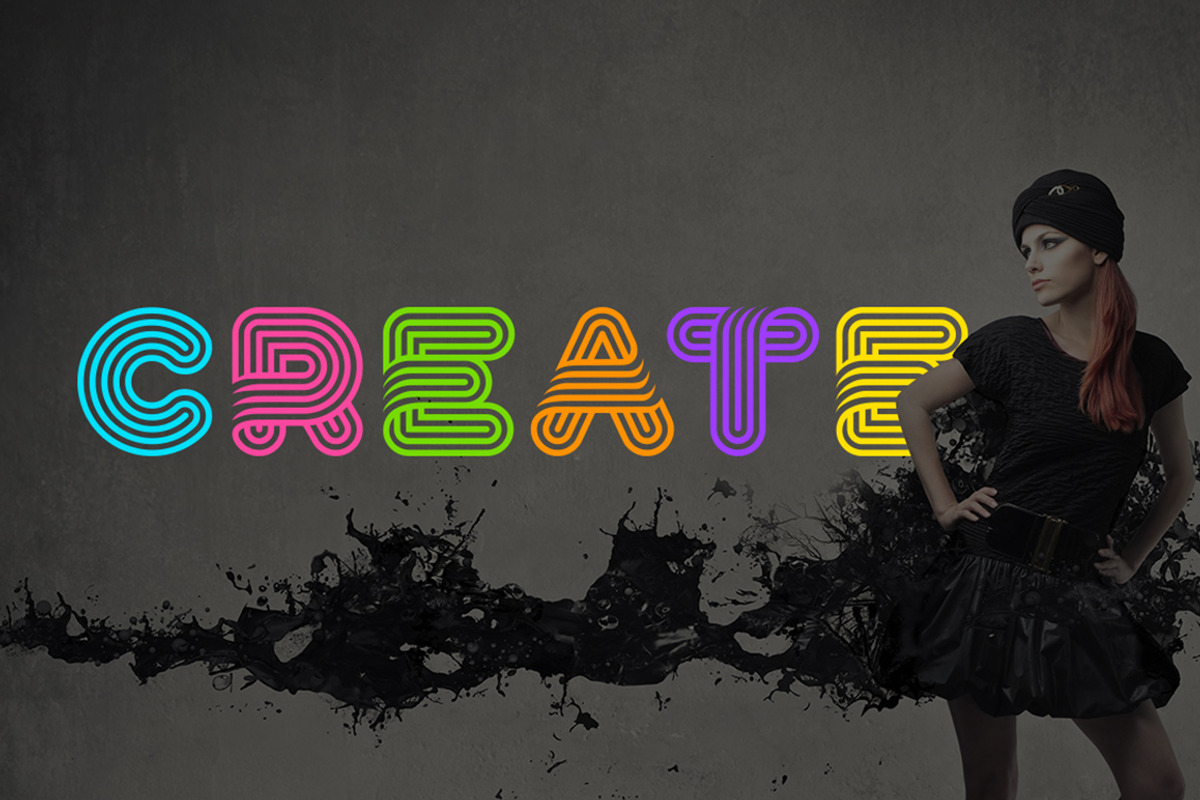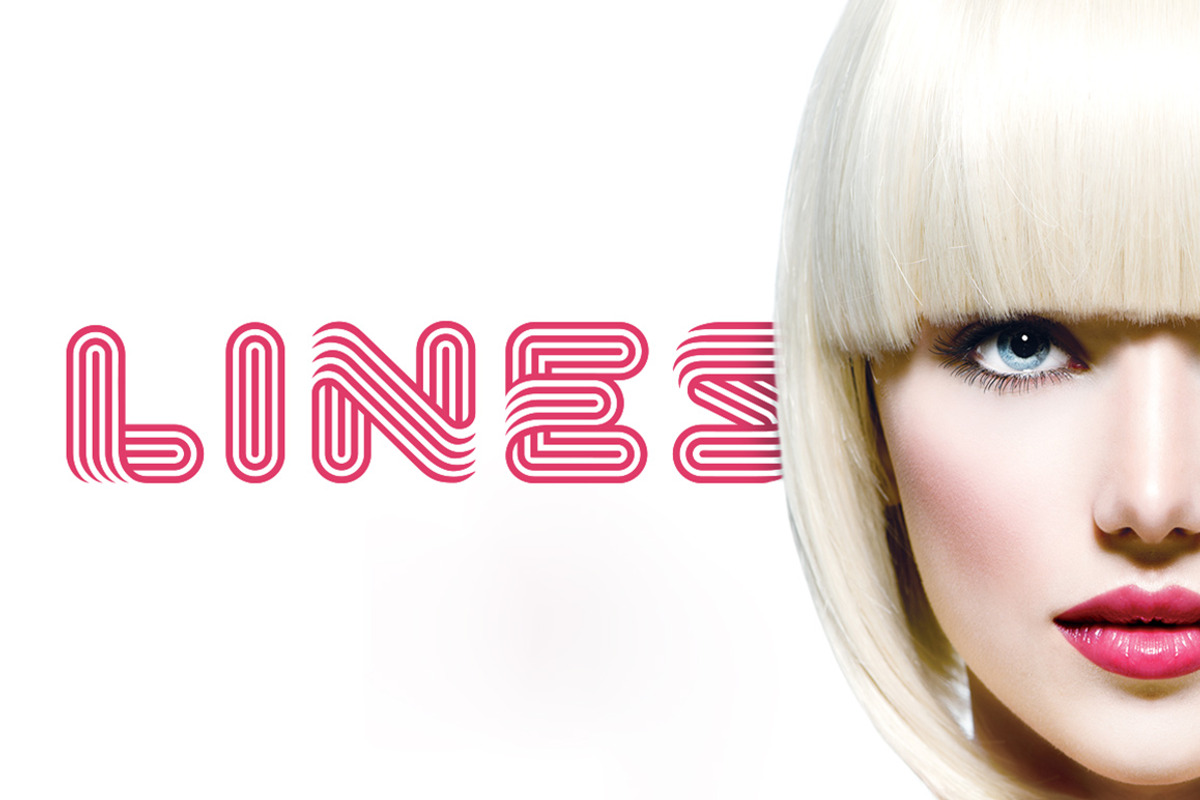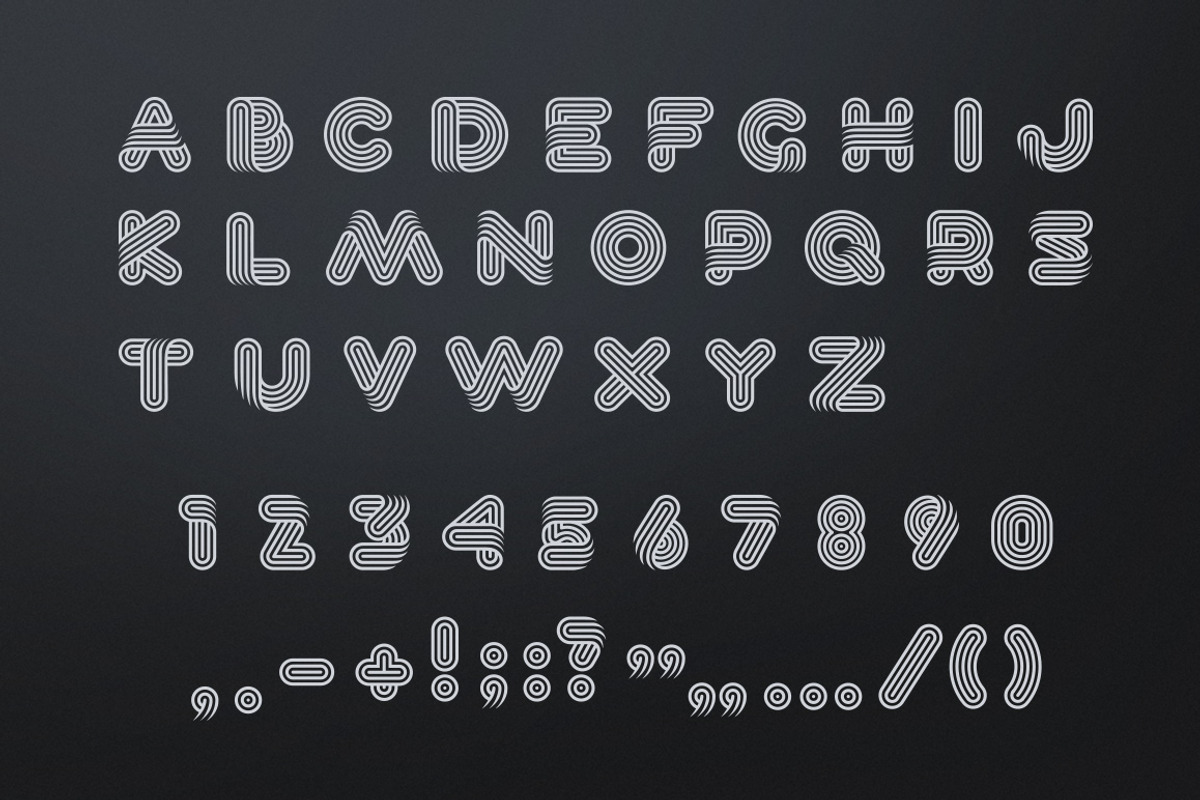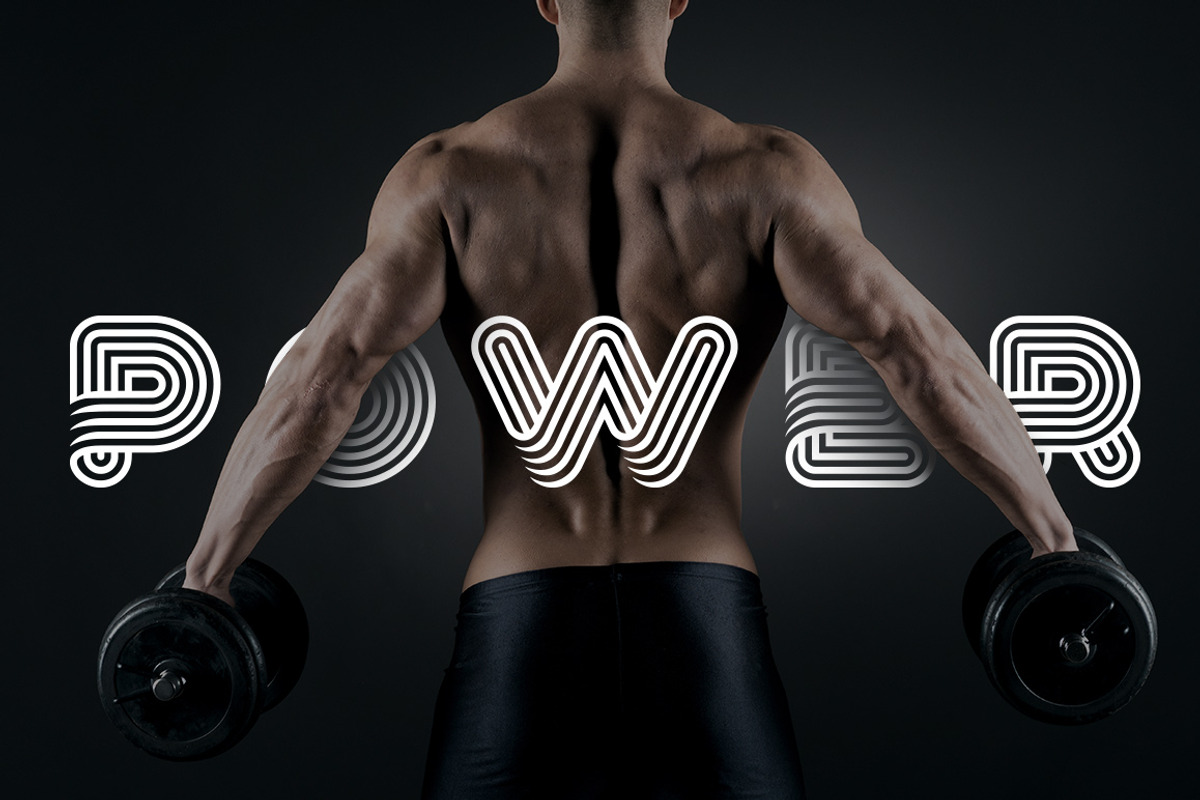
Lineat font
Lineat font by Sentavio is a font selected for branding, posters, packaging, typography.
Why Lineat font is worth a look
Lineat font by Sentavio fits naturally into Branding, posters, packaging, typography.